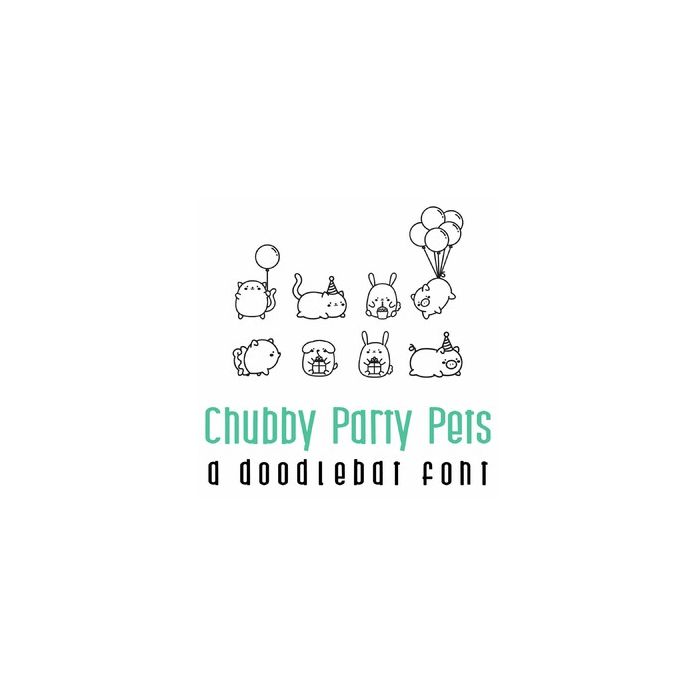
This fun doodlebat font features 26 adorable chubby pets ready for a party. Perfect for cards, gifts, decor, crafts, scrap book pages, planner stickers and more!